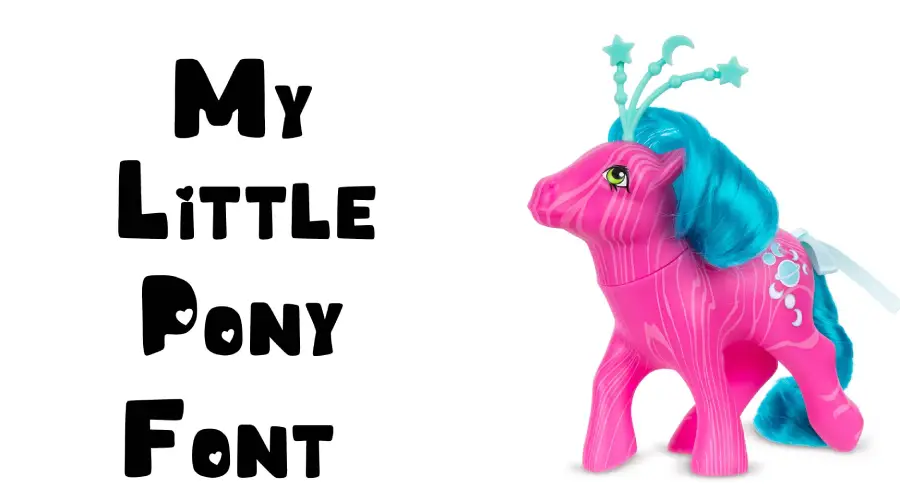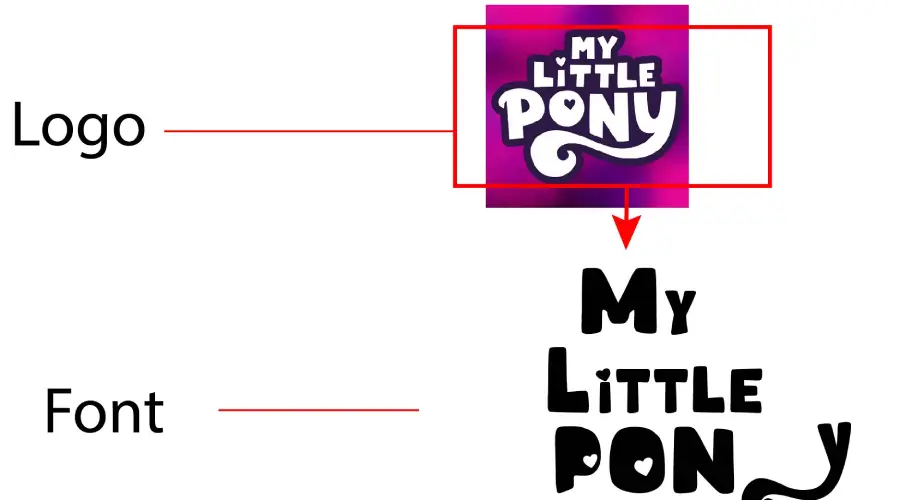
My Little Pony Font
Are you searching for My Little Pony Font? Then your search ends right here! My Little Pony is a toy line and media franchise developed by Hasbro. It features colorful ponies with unique symbols on their flanks, called cutie marks. The franchise has been popular since the 1980s and has spawned several animated series, movies, games, and merchandise.
My Little Pony Logo vs My Little Pony Font Similarity Example
The font used on the My Little Pony logo is custom-made. But it has been recreated in My Little Pony font. This font is free to download. You can use it for both personal and commercial use.
My Little Pony font is a fun and colorful typeface that is inspired by the logo of the famous toy and media franchise. You can download the font for free and use it for any purpose. You can also use our My Little Pony Font Generator to create your custom design with the font and see how it looks in real-time. Whether you are a fan of the show or just looking for a cute and playful font, My Little Pony font is an excellent choice for you.